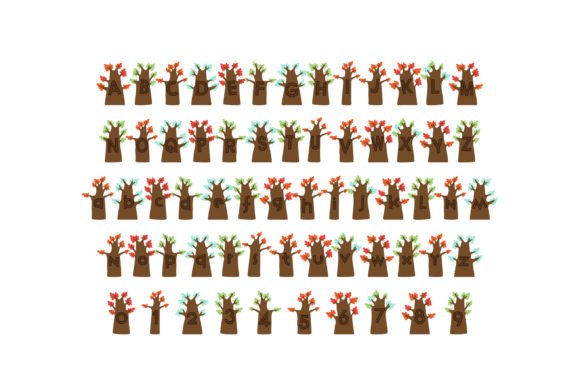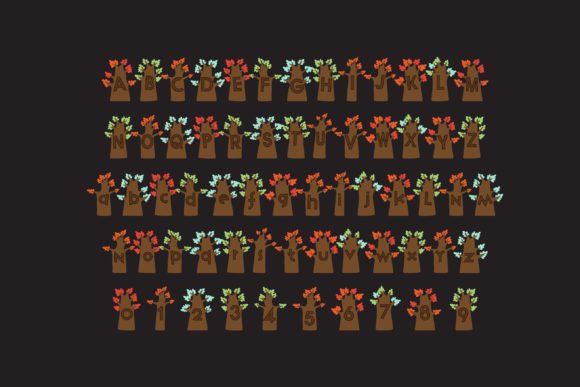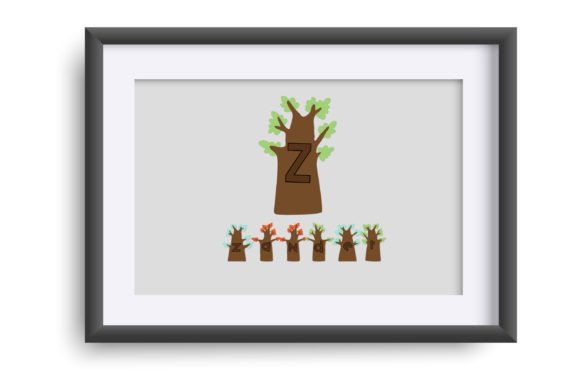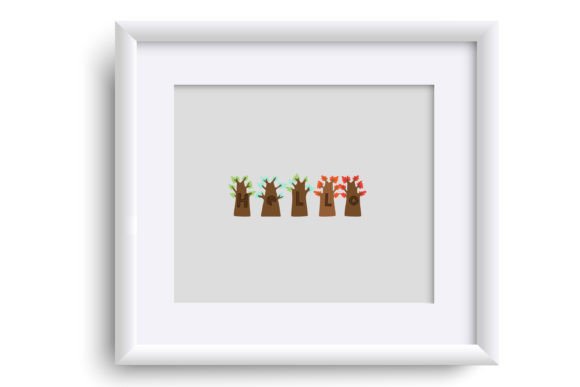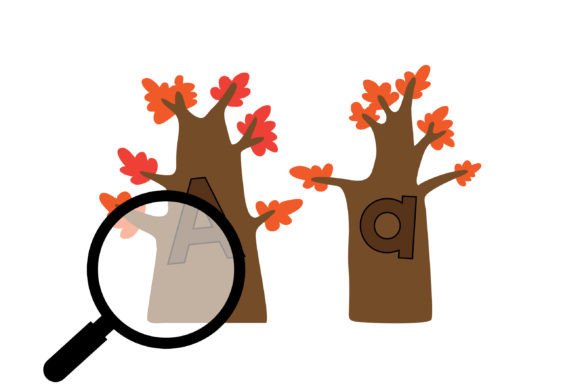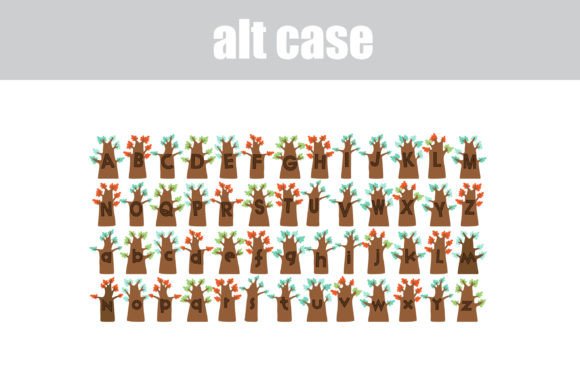
Introduction to Knock on Wood Font
This full-color font features whimsical, sans serif lettering on fall trees.
There is an alt case w/ additional colors you can access through your system or Silhouetteโs glyph map OpenType full-color (SVG) fonts are installed like any normal .
Key Features of Knock on Wood Font